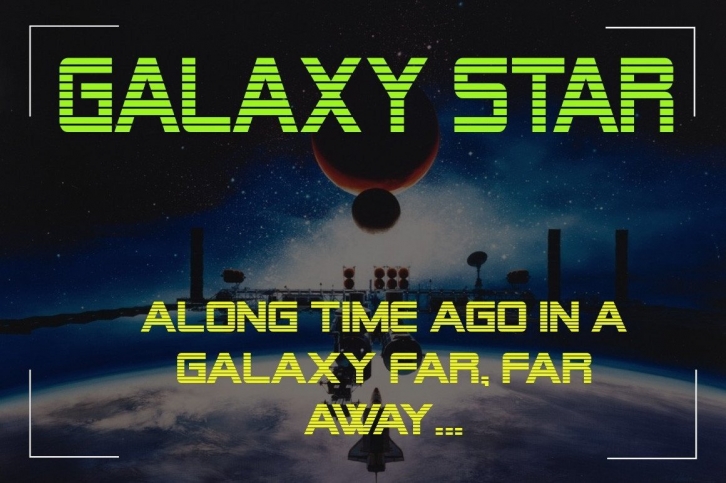
GALAXY STAR is inspiredn from stars wars .
, it goes with a wide range of styles. Add it to your most imaginative thoughts and see how they come to life.